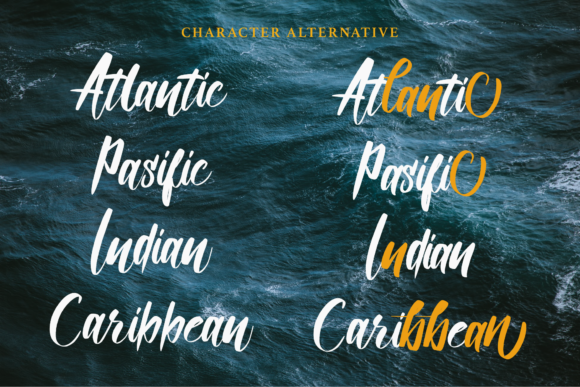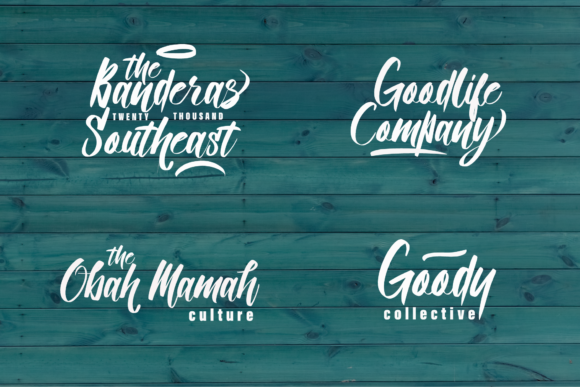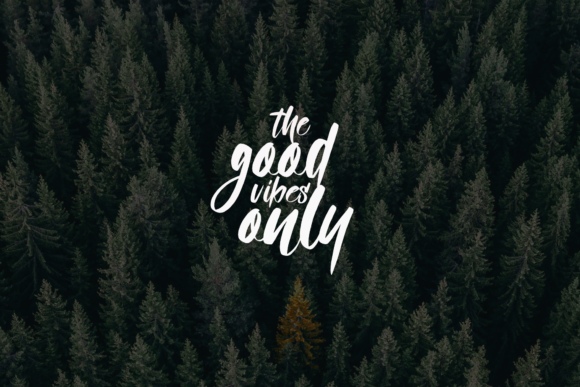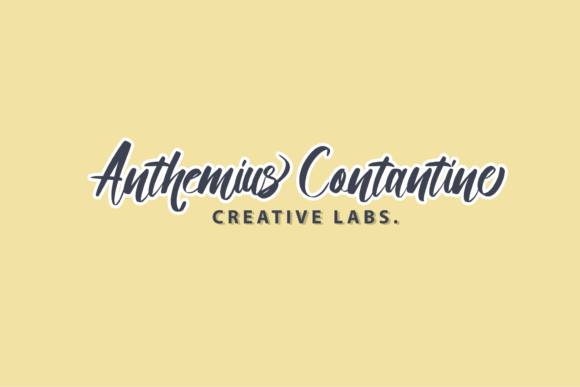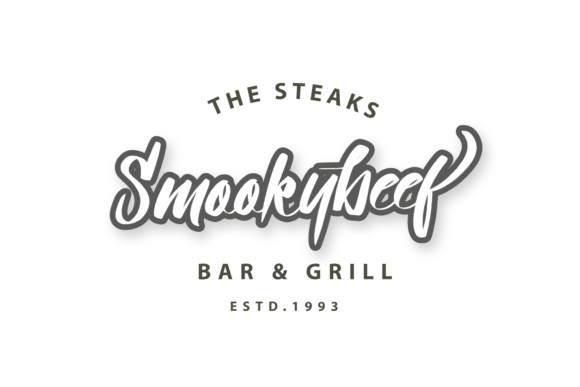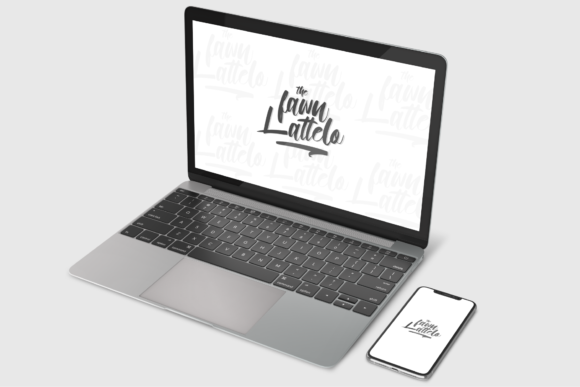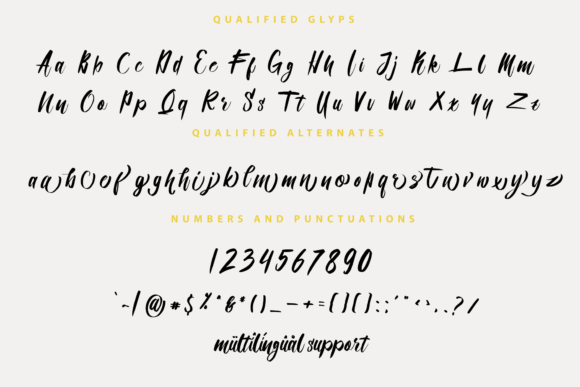
HomeScript FontsQualified Font Script Fonts Qualified Font FacebookXPinterestWhatsApp Qualified Font Poster 2 Qualified Font Poster 3 Qualified Font Poster 4 Qualified Font Poster 5 Qualified Font Poster 6 Qualified Font Poster 7 Qualified Font Poster 8 About Qualified Font Qualified is an equally modern and beautiful script that will turn any design idea into a true standout. DOWNLOAD ON CREATIVE FABRICAThis font is sold and delivered by Creative Fabrica. Font Canyon may earn a commission if you buy through this link. People also explored Night Dream Font Sunday Spring Font Elomesk Font Rockabey Font Bus Stop Worn Font Sheinman Font Bold Style Font Lotoush Thin Font Bruane Brenn Font 349 0 TagsQualified Font Previous articleHolygrave FontNext articlePrithesa Font LEAVE A REPLY Cancel reply Comment: Please enter your comment! Name:* Please enter your name here Email:* You have entered an incorrect email address! Please enter your email address here Website: Save my name, email, and website in this browser for the next time I comment. Personal Use Free Elliane Personal Use Free Read more about this font Hysteria Santa Personal Use Free Read more about this font Stronger Personal Use Free Read more about this font Where the Cookies Personal Use Free Read more about this font BLOG How to Cut Any Font on Cricut: Convert a Font to SVG (Free) Turn any font into a clean SVG so it cuts crisp on Cricut - a quick 3-step workflow using a free font-to-SVG tool. To increase your work productivity, choose the most readable fonts. Using Fonts in Digital Marketing: Tips to Strengthen Your Brand Identity The 10 Best Handwriting Fonts to Add Personality to Your Designs